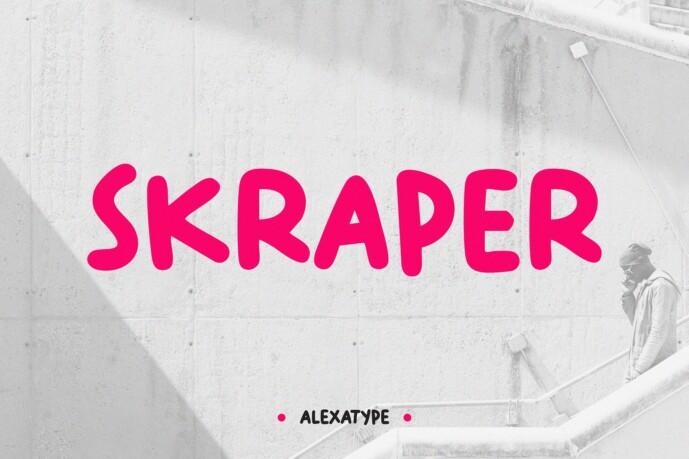
Skraper Font
Designer: alexacrib
SKRAPER – Urban-style font built for rhythm, rebellion, and street-level statements
SKRAPER brings a gritty, hand-shaped display style to life—crafted for urban creators, street style labels, and underground event posters. With bold curves, spontaneous bounce, and raw edge, it channels the unapologetic energy of the dance floor, graffiti alley, or boom bap cipher.
This isn’t your clean-cut sans. It’s meant to shout, stomp, and move with rhythm. Built for loud visuals and cultural identity, SKRAPER carries that human imperfection that makes your message feel alive.
Whether you’re designing for a hip-hop brand, indie zine, underground skate gears, or music showcase, SKRAPER thrives in raw environments. From youth campaigns to dance crew logos and loud street merch, it’s the font that gives rebellion a visual voice.